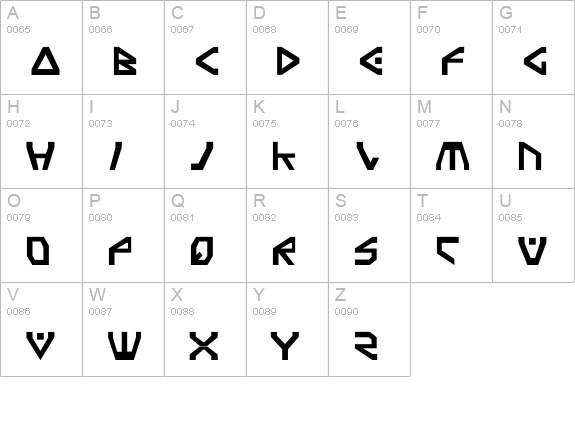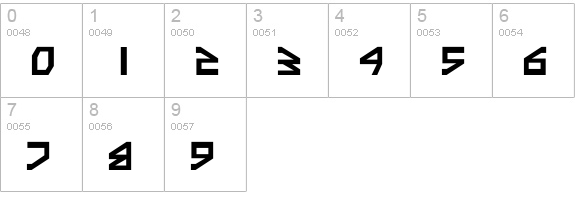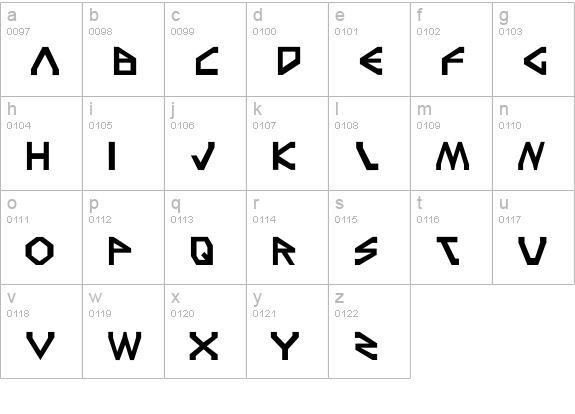
Introducing Terra Firma, a captivating and versatile font that exudes elegance and sophistication. This typeface is the perfect blend of modernity and classic design, making it ideal for a wide range of creative projects. With its clean lines and balanced proportions, Terra Firma effortlessly captures attention while maintaining a sense of harmony. Featuring a wide array of uppercase and lowercase characters, as well as numerals and punctuation marks, Terra Firma offers endless possibilities for creating eye-catching designs. Whether you're working on branding, packaging, posters, or any other creative endeavor, this font will bring your vision to life with its timeless appeal. One of the standout features of Terra Firma is its versatility. It seamlessly transitions from bold and impactful to delicate and refined, making it suitable for both headlines and body text. Its legibility ensures that your message is effectively communicated, while its unique personality adds a touch of individuality to your designs. But here's the best part – Terra Firma is free! That's right, this exceptional font is freely available to download at FontsMarket.com. Now you can effortlessly elevate your design projects without breaking the bank. So why wait? Embrace the beauty of Terra Firma and let your creativity soar with this remarkable typeface.